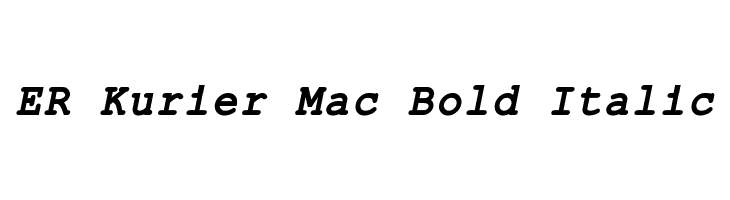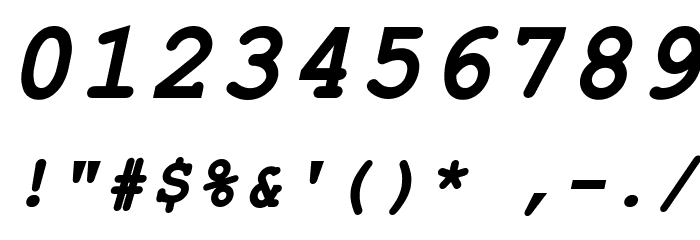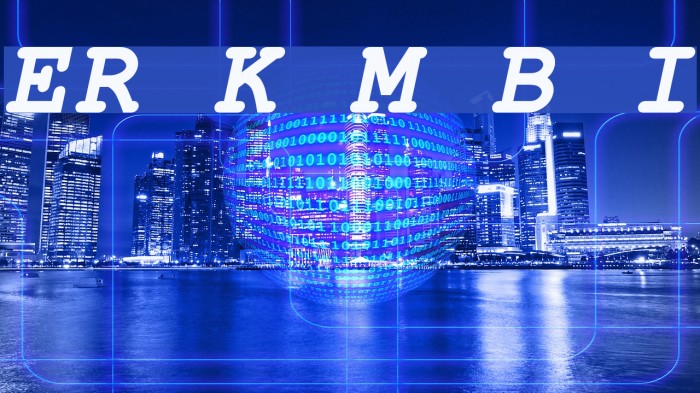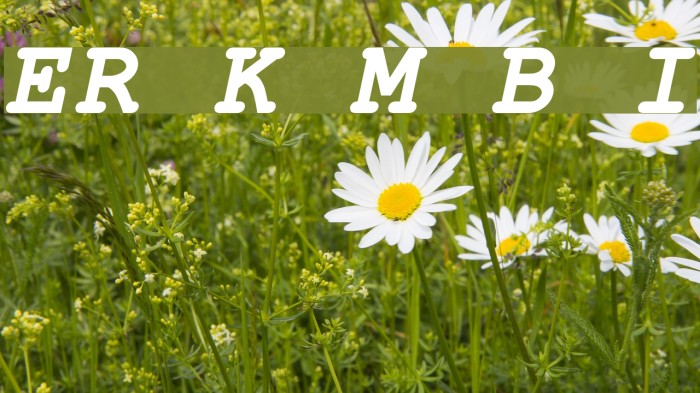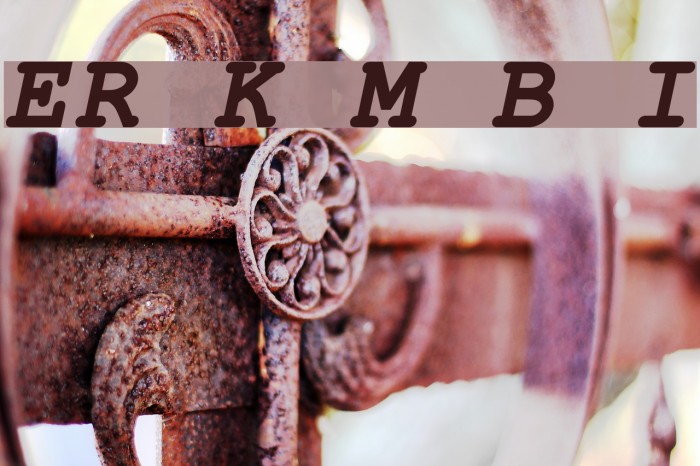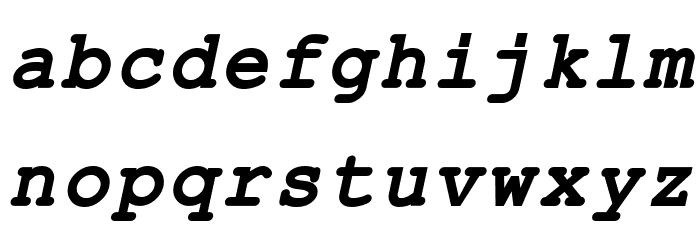
ER Kurier Mac Bold Italic Font
ER Kurier Mac Bold Italic Description
This font exhibits a bold and italicized style with a distinctive slant, giving it a dynamic and energetic appearance. The characters are robust and well-defined, with a slight curvature that adds a touch of elegance. The uppercase letters are prominent and commanding, while the lowercase letters maintain a consistent flow. Numbers are clear and easily readable, making them suitable for various applications. The special characters are well-integrated, ensuring versatility in design. Overall, the font combines strength and style, making it ideal for impactful visual communication.
A bold, italicized font with a dynamic and energetic style from Typewriter fonts.
- Proposed Projects: Ideal for branding, advertising, headlines, and posters where a strong and stylish impact is desired.